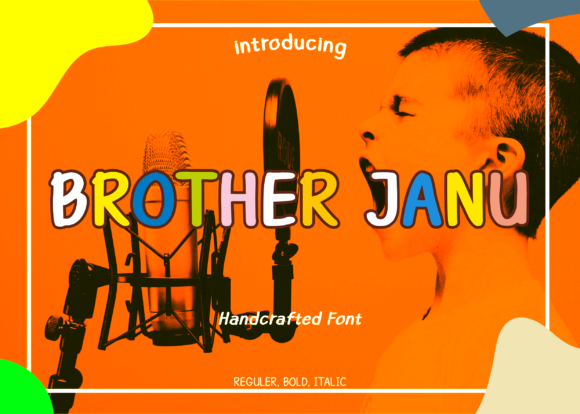
Creating Artistic Masterpieces with the Perfect Font
Have you ever been brainstorming a creative project, only to be stuck on finding the perfect font to bring it to life? We’ve all been there – the blank page staring back at us, the cursor blinking impatiently, and the pressure to create something truly special.
Enter the Brother Janu Font, a stunning handwritten font that has been making waves in the design world. With its four distinct styles, Brother Janu Font is the ultimate tool for designers looking to add a touch of elegance and sophistication to their projects. Whether you’re creating a beautiful Instagram post or crafting a custom calligraphy script for a DIY project, Brother Janu Font will elevate your design to new heights.
As a valuable resource for designers, Brother Janu Font offers endless possibilities for creative expression. Its versatility, combined with its unique charm, makes it an essential addition to any design toolkit.
Brother Janu Font Key Features
- Font Family: Brother Janu is a unique, sans-serif font with a distinctive feel.
- Character Set: Supports a wide range of languages, including Latin, Cyrillic, and Greek.
- Font Size: Available in a range of sizes, from 8pt to 72pt, with a font size of 12pt being the standard.
- Resolution: Designed for high-resolution displays, with optimal results at 300 DPI and above.
- Unique Characteristics: Brother Janu features a distinctive x-height and a unique set of ligatures, giving it a distinctive feel.
Designer Review: Brother Janu Font
Overall, I found the Brother Janu Font to be an interesting addition to any font library. ✨ One of its strongest features is its unique, hand-written feel. It adds a personal touch to any text, making it perfect for creative projects like invitations, advertisements, or even book covers. The font’s subtle imperfections also give it a sense of character that’s hard to replicate with more polished fonts.
Another plus is the font’s versatility. It comes in a range of weights, from light to bold, allowing designers to experiment with different styles and moods. This makes it a great choice for designers who want to create a consistent look and feel across multiple projects.
- ⚠️ The font may not be suitable for large blocks of text, as its hand-written feel can make it difficult to read at larger sizes.
- ⚠️ The font’s unique style may not be to everyone’s taste, so it’s essential to use it judiciously and in the right context.
- ⚠️ Some characters, like the letter “a” in lowercase, may not be perfectly legible, which could be a concern for designers working with this font at larger sizes.
Overall, I think the Brother Janu Font is a great choice for designers who want to add a touch of personality to their projects. With its unique style and versatility, it’s sure to be a hit with creative designers looking to push the boundaries of typography.
Brother Janu Font Practical Application Guide
Tips for Getting the Most Out of Brother Janu Font
Brother Janu Font is a unique, handwritten font that works well for creative and artistic projects. Tips for getting the most out of it include:
Using it for headings and titles to add a personal touch.
Combining it with other fonts to create a visually appealing contrast.
Experimenting with different font sizes and styles to create a dynamic look.
Brother Janu Font is commonly used for:
Artistic and creative projects, such as illustrations and graphics.
Personalized gifts and home decor items.
Alternatives to Brother Janu Font
Playfair Display is an elegant, luxurious serif font. It’s ideal for use in high-end branding, magazine titles, and luxury packaging. Its intricate details and ornate flourishes make it perfect for creating a sense of sophistication and refinement. Compared to Brother Janu Font, Playfair Display has a more classical and traditional feel, while Brother Janu Font has a more modern and minimalist aesthetic.
Great Vibes is a modern, elegant script font. It’s perfect for use in creative and artistic projects, such as wedding invitations, branding, and packaging. Its flowing lines and dynamic feel make it ideal for adding a touch of elegance and sophistication to any design. Compared to Brother Janu Font, Great Vibes has a more organic and handwritten feel, while Brother Janu Font has a more digital and geometric aesthetic.